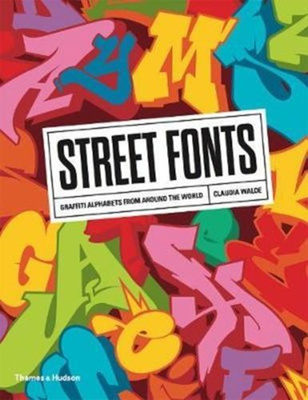
Street Fonts: Graffiti Alphabets from Around the World
• Classic graffiti lettering and experimental typographical forms lie at the heart of street culture and have long inspired designers in many different fields.
Claudia Walde